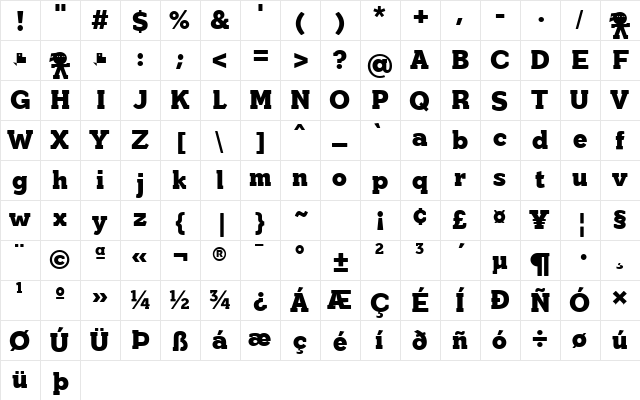
Yonky Black
| Foundry | Fernando Haro |
| Designer | deFharo |
Design Context for Yonky Typeface
Yonky offers clean, dependable letterforms without strong stylistic allegiance, making it a practical choice for designers who need flexibility.